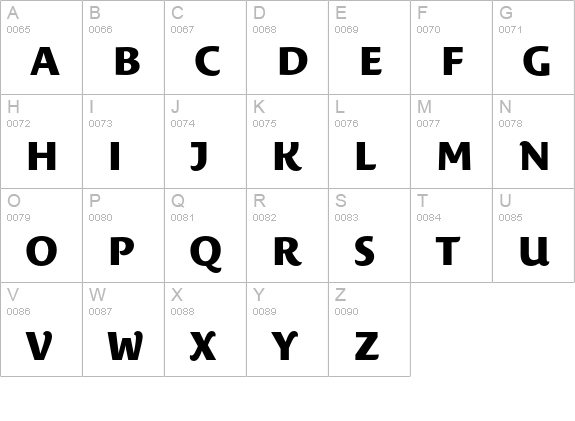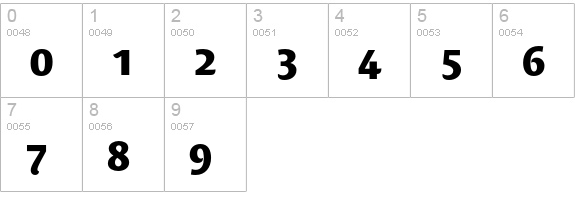
Costa Ptf ExtraBold Font Details
Costa Ptf ExtraBold is an extra-heavy, attention-grabbing variant in the Costa typeface family \xE2\x80\x94 well suited to high-impact headlines, posters, and bold branding.
Costa Ptf ExtraBold font is a bold and impactful typeface that exudes strength and confidence. Its thick strokes and sharp edges make it perfect for making a statement in headlines, titles, and branding materials. With its commanding presence, Costa Ptf ExtraBold demands attention and leaves a lasting impression on viewers. The versatility of Costa Ptf ExtraBold allows it to be used in a variety of design projects, from posters and advertisements to logos and packaging. Its modern and sleek design gives a contemporary touch to any visual composition, while its readability ensures that your message is conveyed clearly and effectively. Best of all, Costa Ptf ExtraBold is available for free download at FontsMarket.com. This means that you can easily access this powerful font and incorporate it into your designs without any cost. Don't miss out on the opportunity to enhance your projects with the bold and striking aesthetic of Costa Ptf ExtraBold font. Download it now and elevate your designs to the next level!